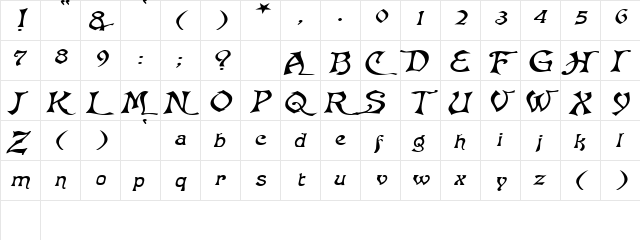
BaphometExtended Italic
Design Context for BaphometExtended Typeface
BaphometExtended is a composed and adaptable typeface that performs quietly and consistently across a wide range of design contexts. The dynamic lean of this cut emphasises speed and emphasis in any layout.